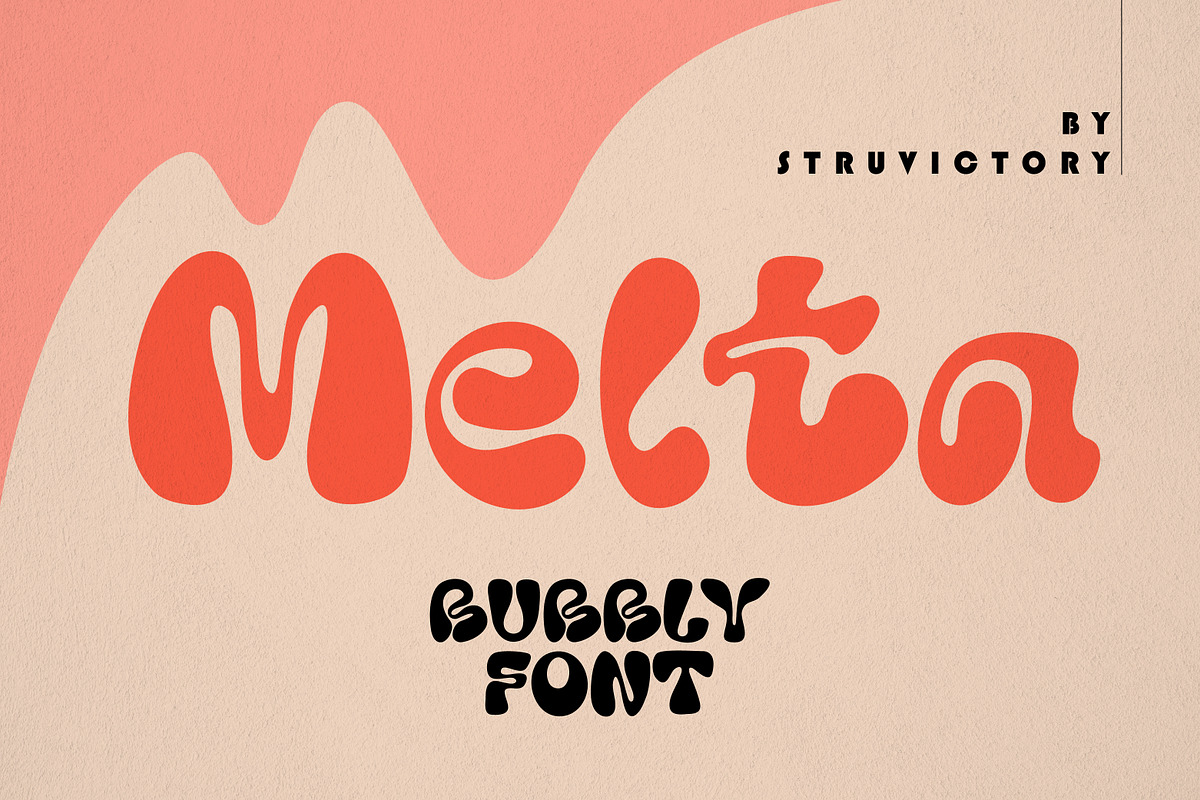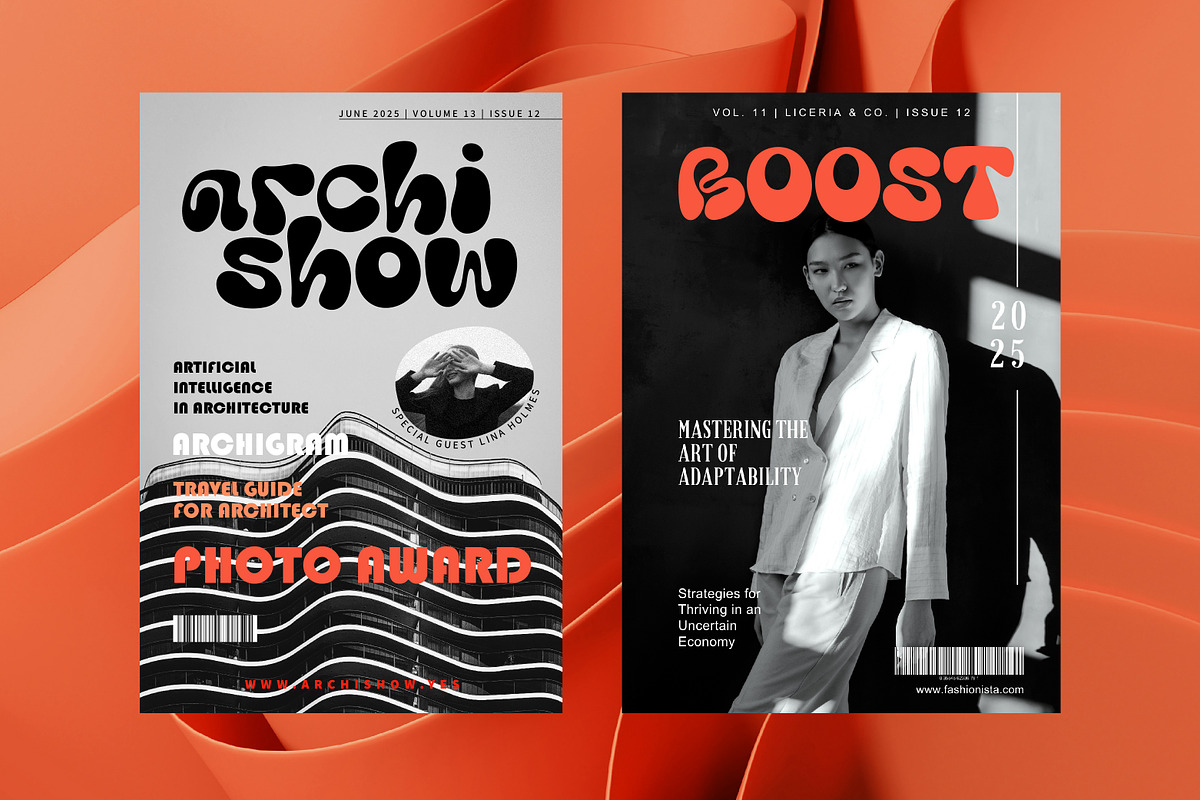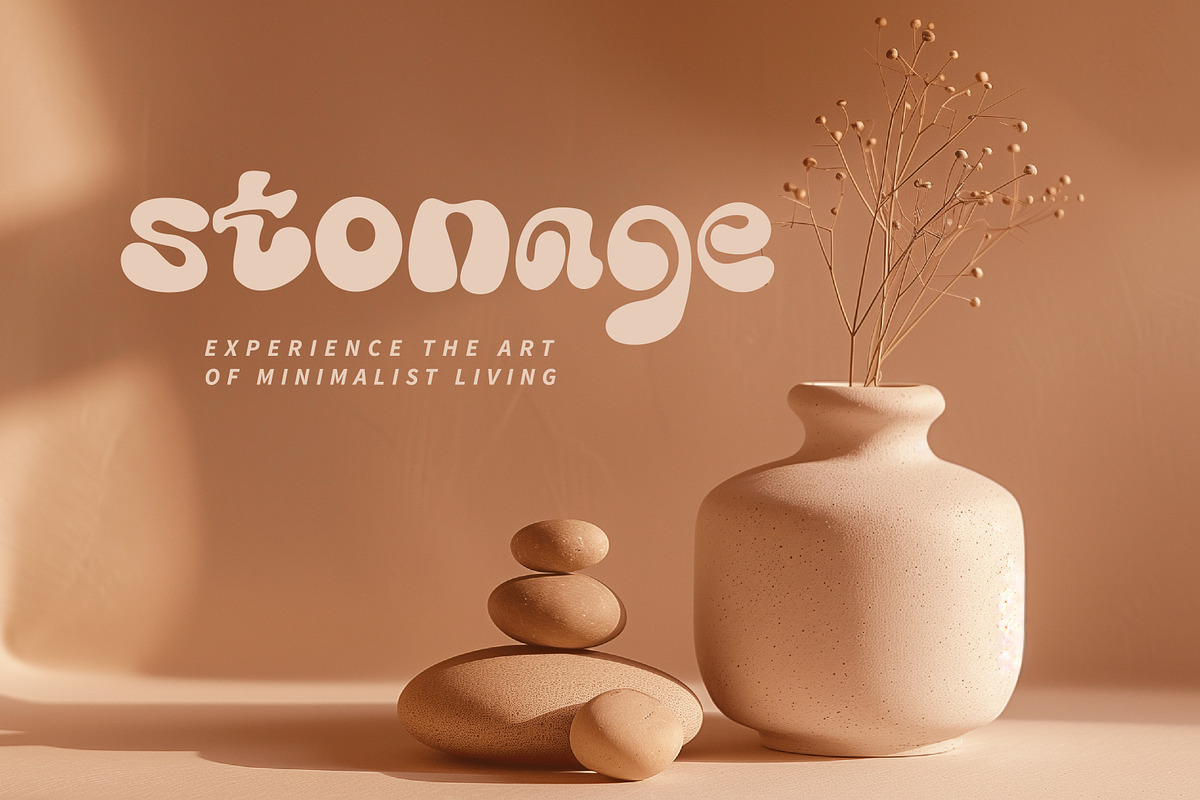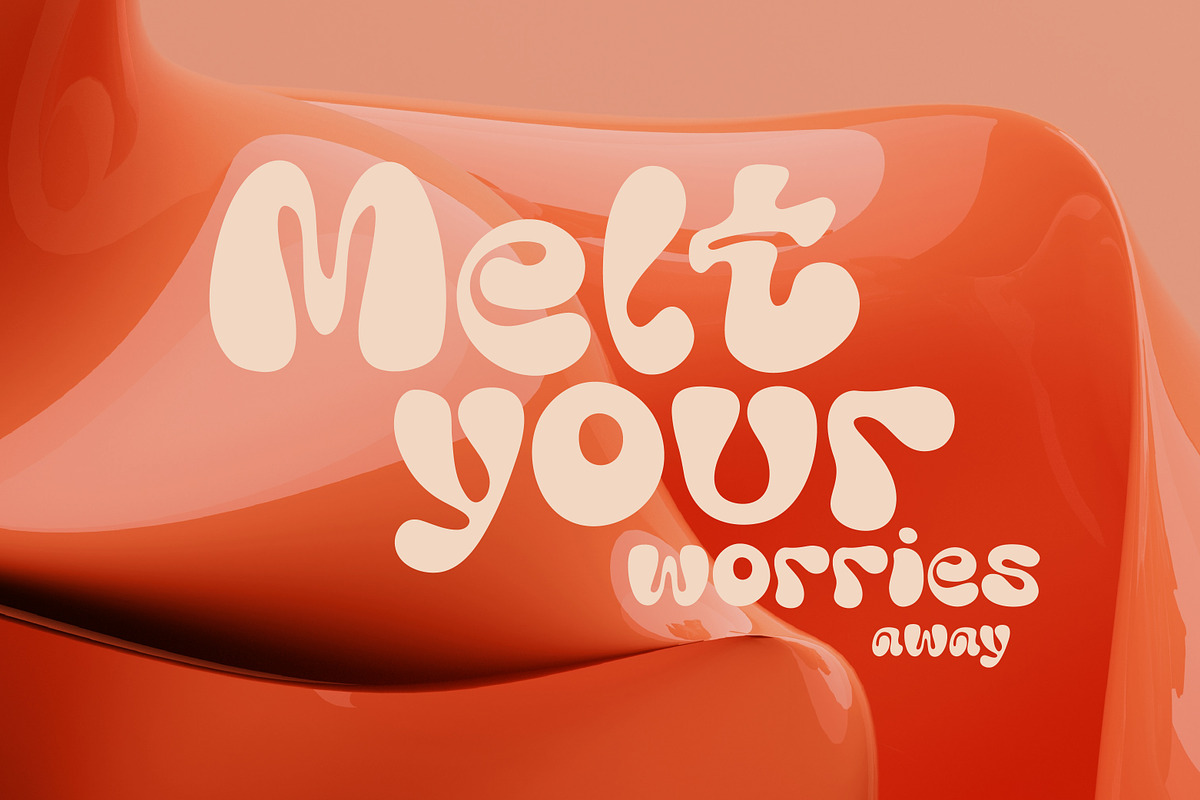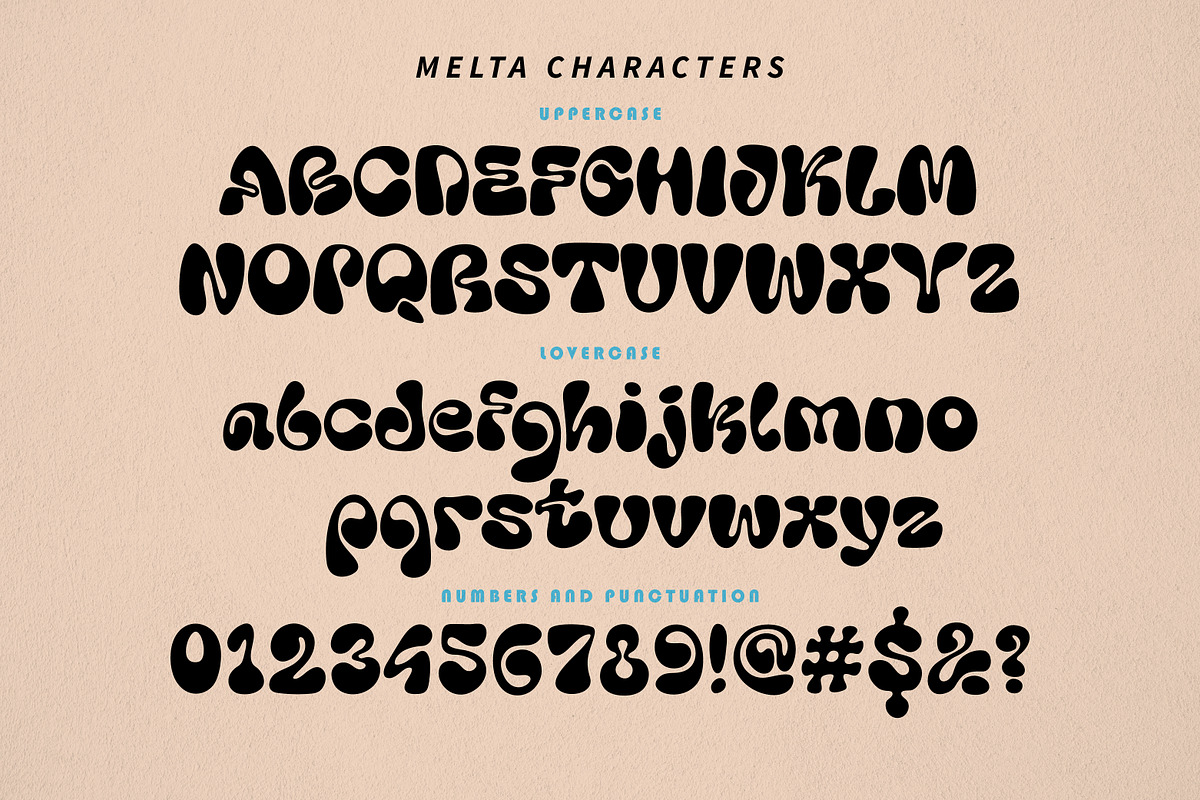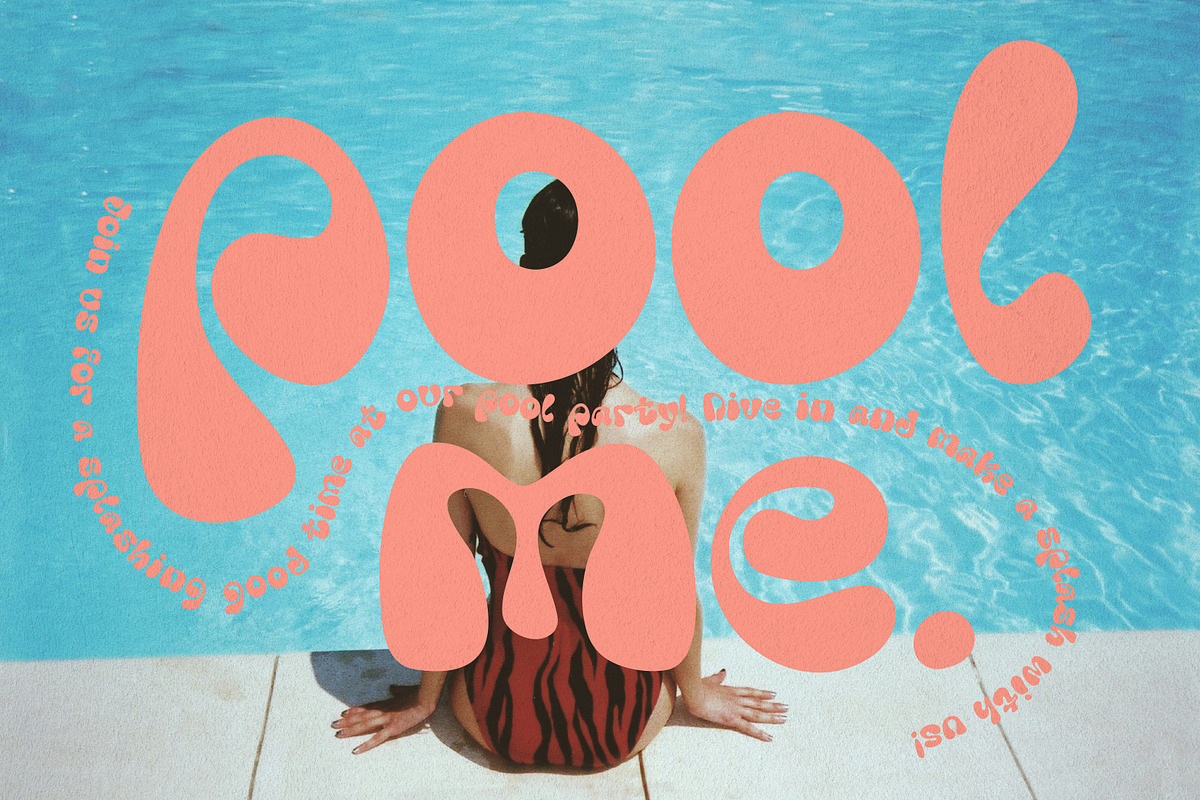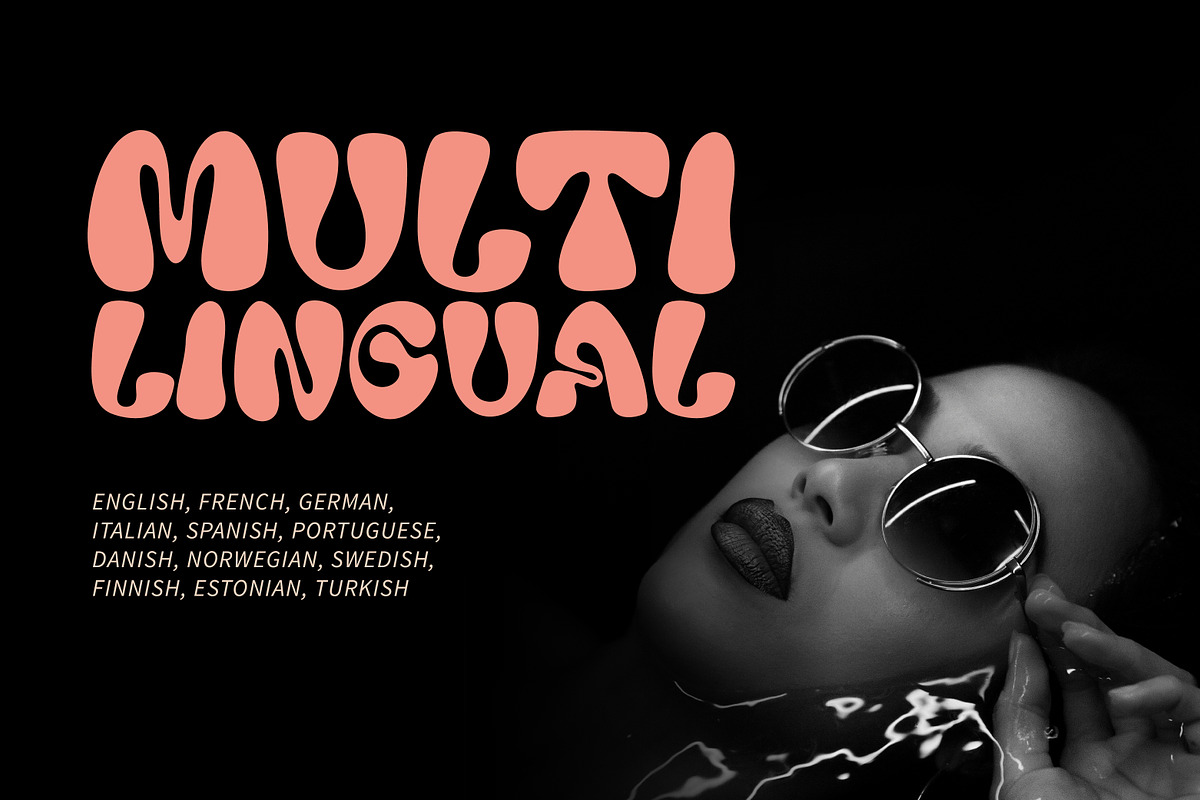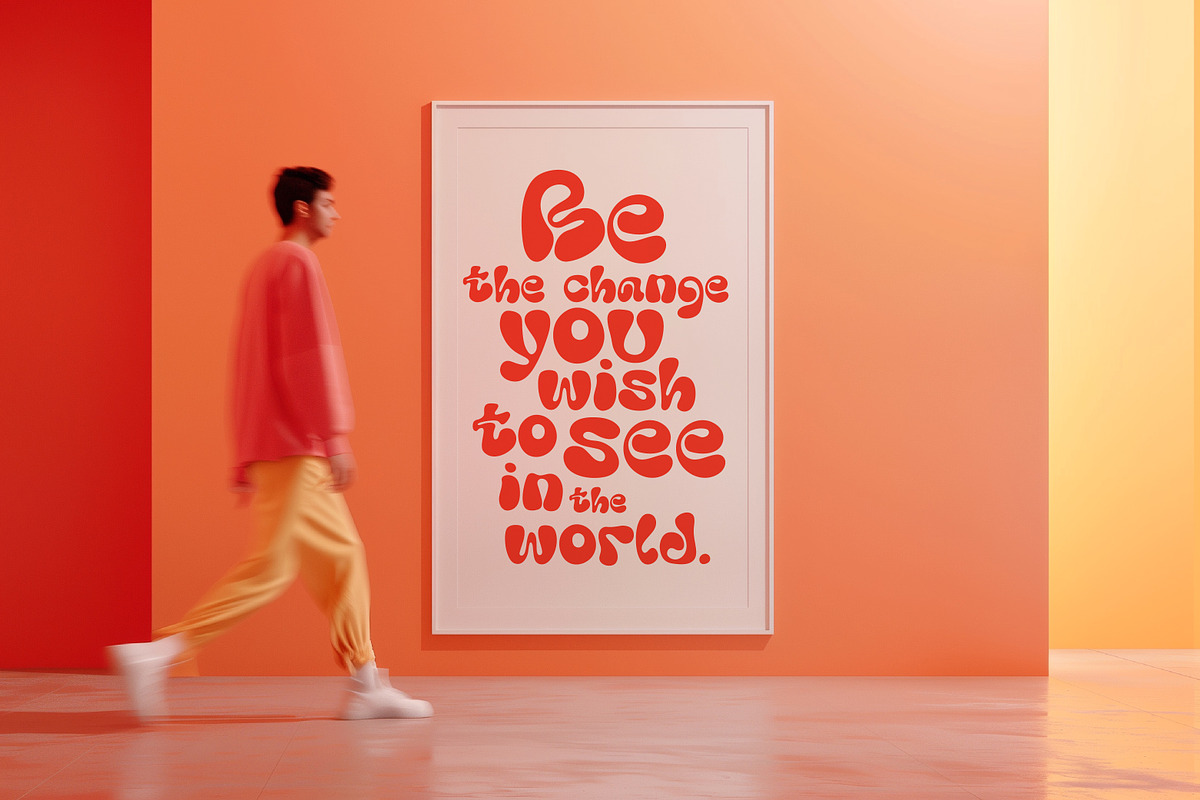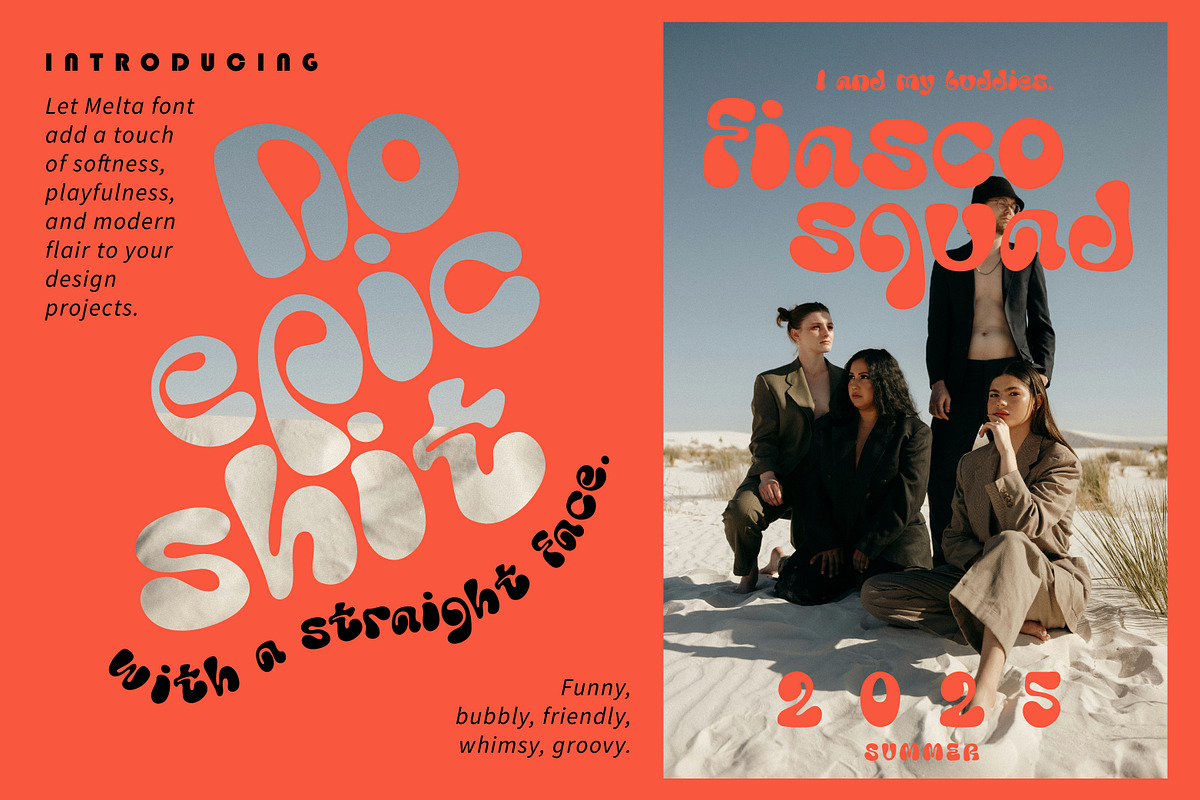
Melta - Bubble Groovy Font
Introducing Melta Font: The Perfect Blend of Retro Inspiration and Modern Sophistication. Elevate your designs with Melta, a bold and rounded font that effortlessly captures the essence of retro aesthetics. Its smooth curves and bold presence make it ideal for modern posters, magazine headlines, and logos. Let Melta font bring a touch of nostalgia and contemporary allure to your projects, making a lasting impression with its captivating design.
The font Melta includes the most popular latin-based languages, you can check the symbol you need by typing a couple of words in the font preview box.